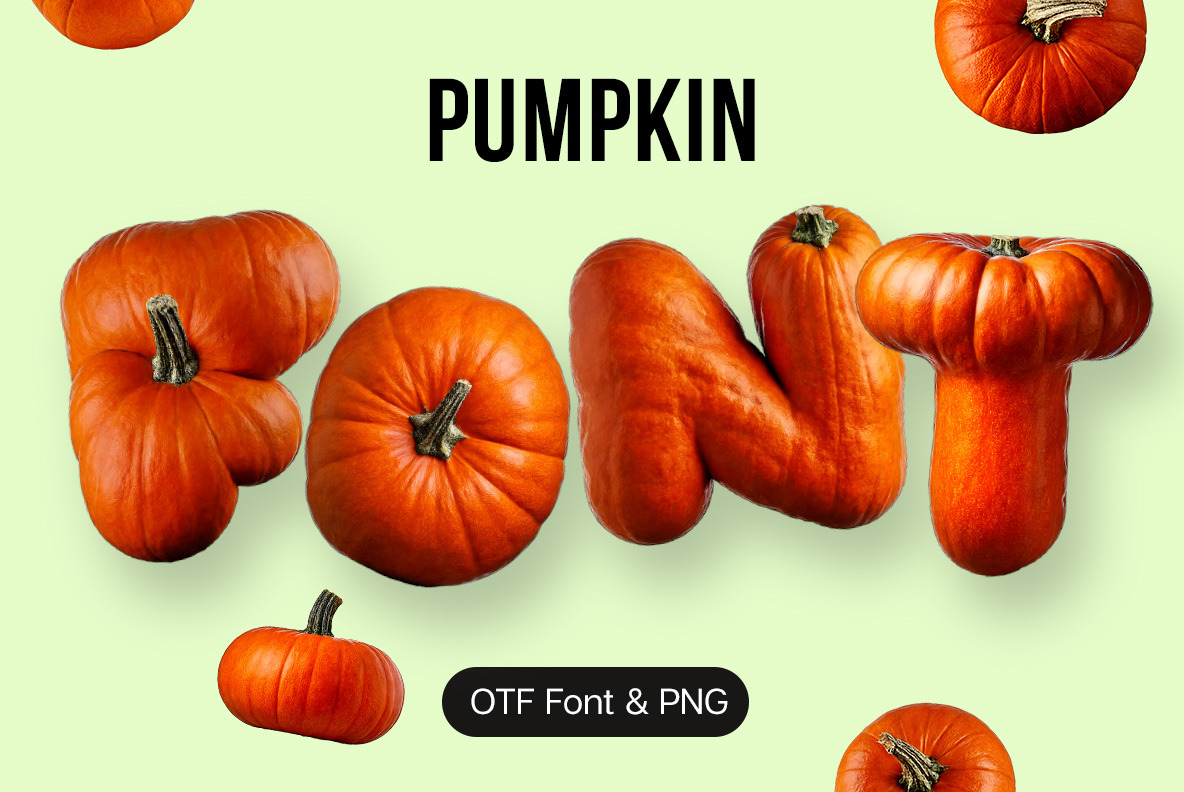
Pumpkin Font
Pumpkin Font is a fun and spooky Halloween-themed typeface crafted from pumpkin-inspired letters. Each letter is creatively shaped like pumpkins, perfect for adding a festive touch to your designs. This playful vegetable font is ideal for Halloween party invitations, seasonal posters, or fall-themed artwork. Embrace the spirit of autumn with this quirky pumpkin alphabet and make your designs stand out with a unique, artistic twist!
A high definition OpenType Font. Contains uppercase characters, numerals and basic punctuation. (Draw height roughly 800 pixels). All letters and glyphs that comprises this font you can see on the preview.
- Letters : A B C D E F G H I J K L M N O P Q R S T U V W X Y Z
- Numbers : 0 1 2 3 4 5 6 7 8 9
- Others : ! ? - . ' $ € % @ &